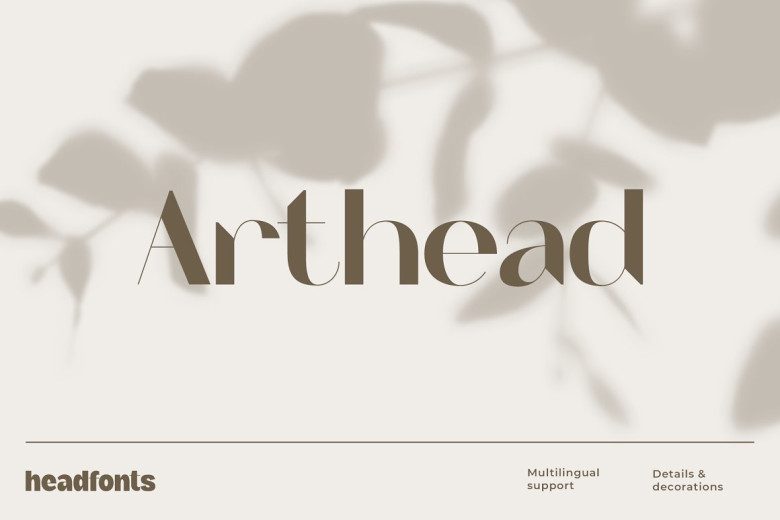
Arthead Font
A modern and slightly decorative typeface family, ARTHEAD adds a bit of style to your work that is both sophisticated and memorable. Neither its structure nor its shapes are overly complex. It is quite minimal, though with an extreme contrast in strokes that creates negative spaces and highlights other areas. Arthead employs a vertical axis for today’s look. All proportions are considered, with thin terminals and descenders as well as large counters.
This state of the art font has three weights, Arthead Light. Regular and Bold. Each weight has 103 glyphs, an uppercase and lowercase alphabet, numerals and standard Latin script support. Arthead is the perfect fit for headlines, titling, large format prints and posters or any work that calls for a distinctive but clean design.
Arthead Sans Serif Font